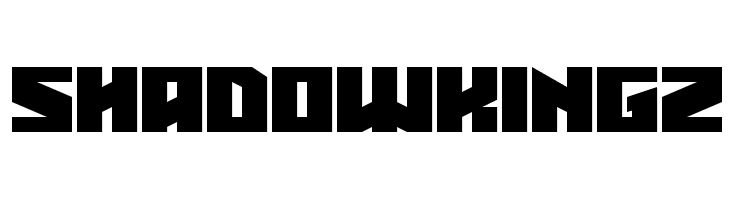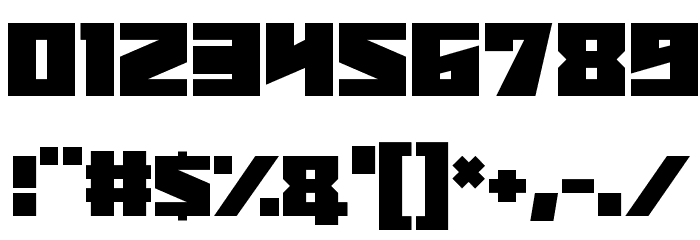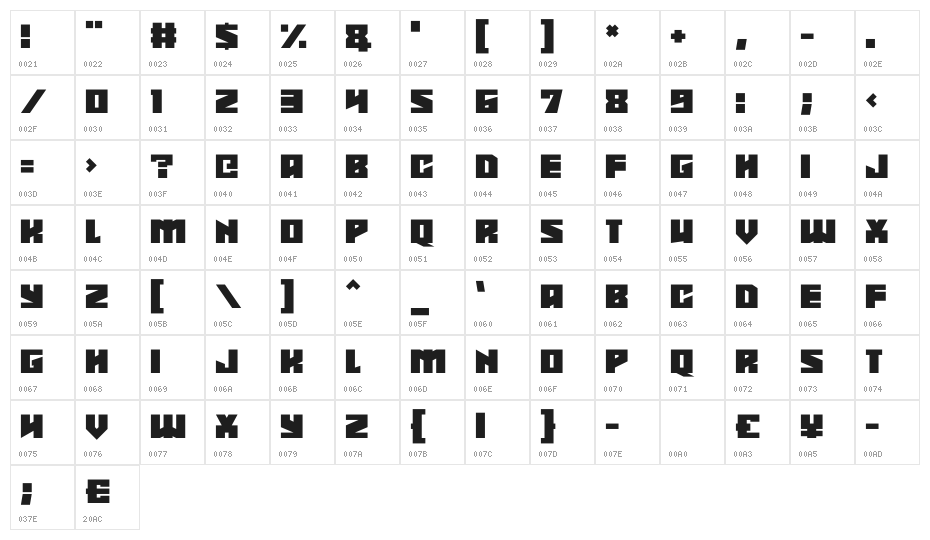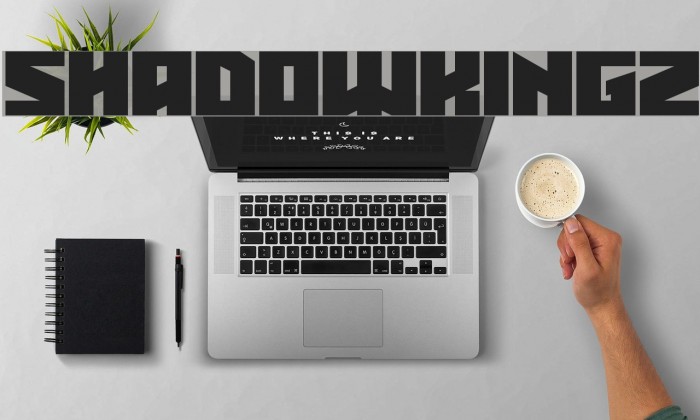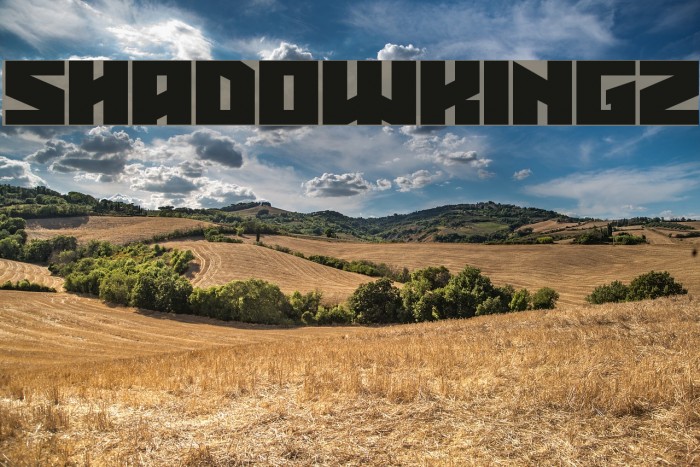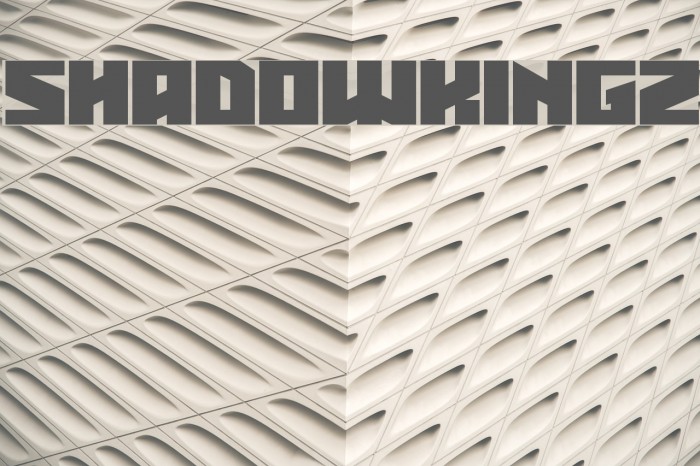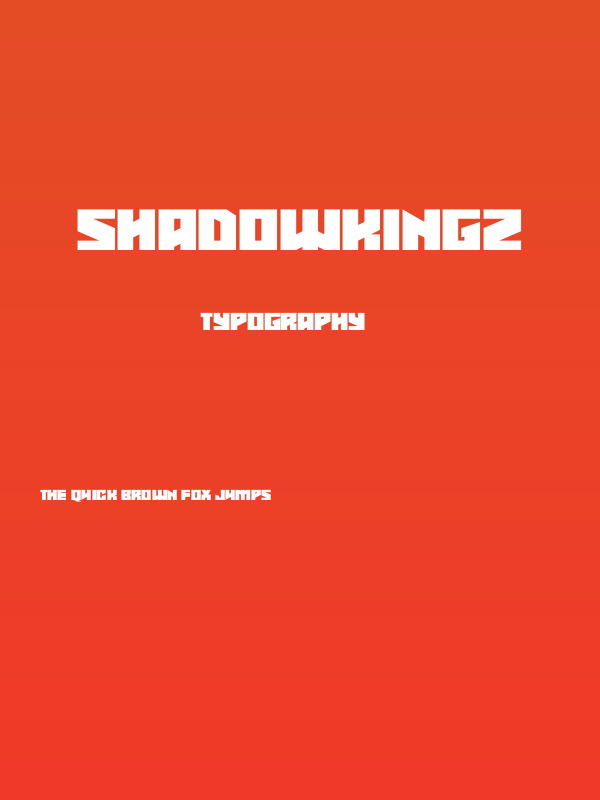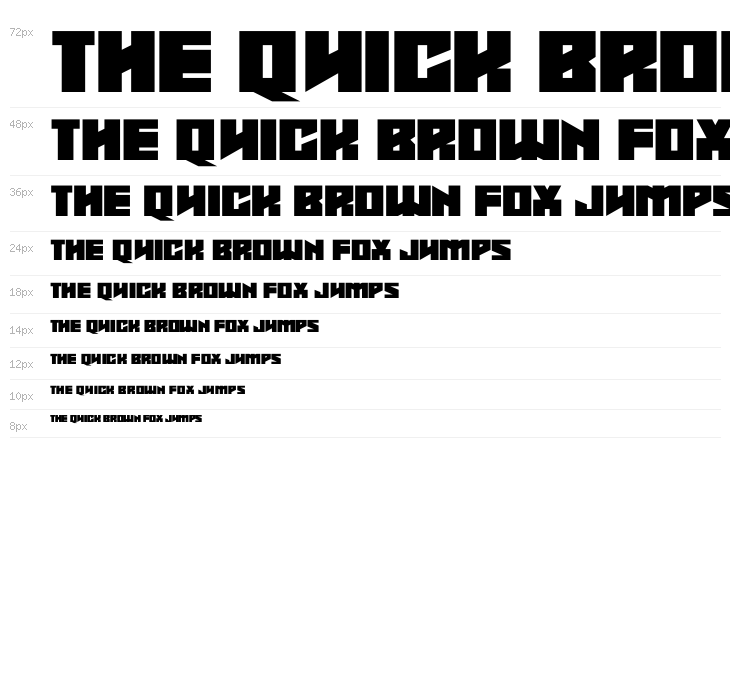
Shadowkingz Font
Shadowkingz Description
This font features a bold, geometric design with sharp angles and a blocky appearance. The characters are uniformly thick, creating a strong visual impact. The uppercase and lowercase letters maintain a consistent style, emphasizing a modern and edgy aesthetic. The numerals and special characters follow the same design principles, ensuring a cohesive look across all glyphs. The font's distinct style makes it suitable for attention-grabbing headlines and logos, where a bold statement is desired. Its unique structure and angular forms give it a futuristic and dynamic feel.
| Proposed Projects | Ideal for use in branding, logos, posters, and video game titles where a strong, futuristic look is needed. |